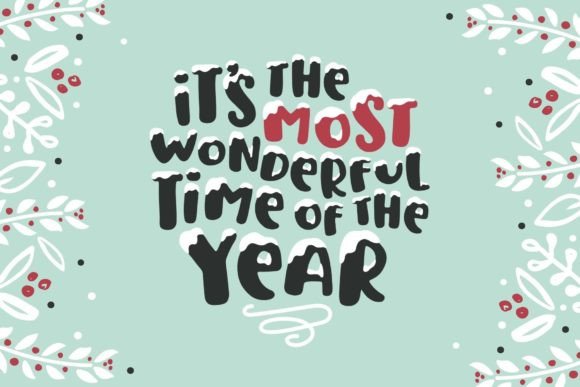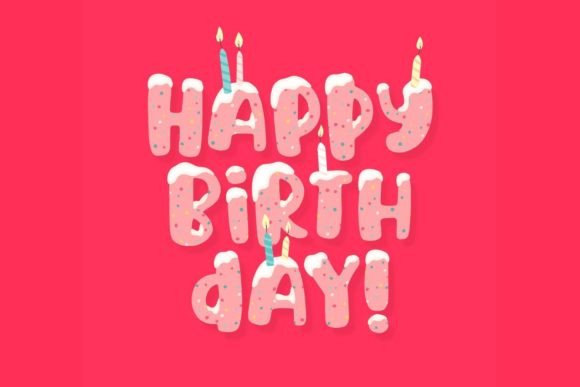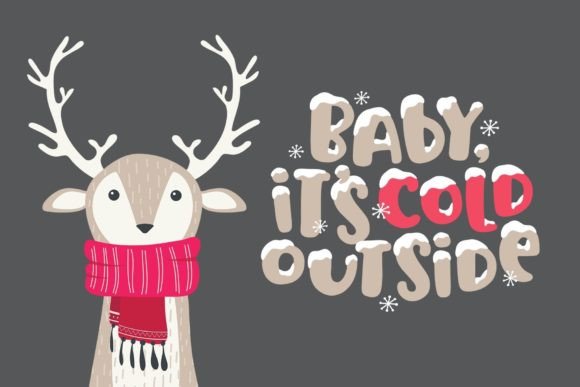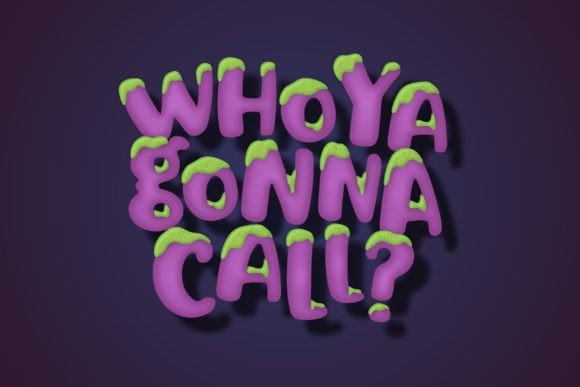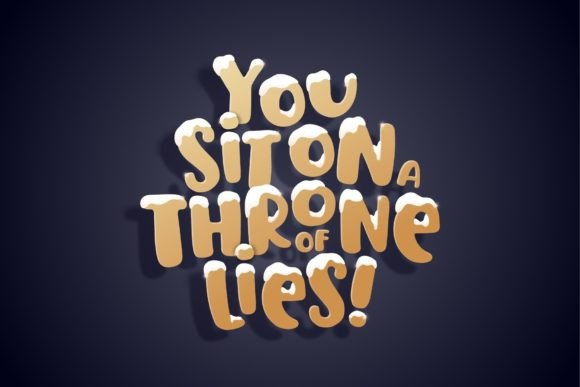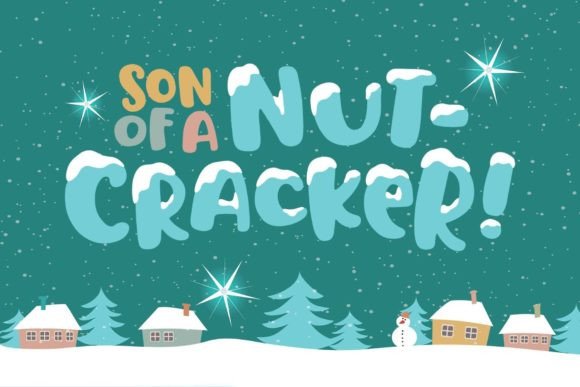
Discover the Magic of Blanket of Snow Font: A Winter Wonderland Addition to Your Designs
Are you looking for a font that can add a touch of winter magic to your designs? Look no further than the Blanket of Snow Font, a wide, bold font packed with personality. This versatile font can be used alone or paired with its overlay version for a snow-capped effect, making it perfect for a variety of projects. In this article, we’ll dive into the features and benefits of the Blanket of Snow Font and explore how you can use it to elevate your designs.
A Font that’s as Unique as a Snowflake
The Blanket of Snow Font is a one-of-a-kind typeface that’s sure to make your designs stand out. Its wide, bold letters are perfect for headlines, titles, and other applications where you want to make a statement. The font’s unique personality shines through in its playful, yet rugged, design. Whether you’re creating a winter-themed project or just want to add a touch of whimsy to your work, the Blanket of Snow Font is the perfect choice.
Versatility at its Finest: Using Blanket of Snow Font Alone or with Overlay
One of the best things about the Blanket of Snow Font is its versatility. You can use it on its own for a bold, eye-catching look or pair it with the overlay version for a snow-capped effect. This overlay version allows you to add an extra layer of texture and interest to your designs, giving them a truly unique and eye-catching look. Whether you’re creating a festive holiday card or a winter-themed poster, the Blanket of Snow Font and its overlay version make it easy to achieve a professional-looking result.
Adding a Touch of Winter Wonder to Your Designs
The Blanket of Snow Font is perfect for a wide range of design projects, from winter-themed posters and flyers to holiday cards and invitations. Its bold, playful design makes it a great choice for:
- Winter-themed posters and flyers
- Snow-themed party decorations and banners
- Winter sports and outdoor gear branding
- Festive packaging and product labels
With the Blanket of Snow Font, you can add a touch of winter wonder to any project and make it truly unforgettable.
Tips for Getting the Most Out of Blanket of Snow Font
To get the most out of the Blanket of Snow Font, here are a few tips to keep in mind:
- Use it boldly: The Blanket of Snow Font is designed to make a statement, so don’t be afraid to use it in large sizes.
- Experiment with colors: The font’s bold design looks great in a variety of colors, from bright and bold to more muted and subtle.
- Pair it with other fonts: The Blanket of Snow Font pairs well with a variety of other fonts, so feel free to experiment with different combinations.
- Try the overlay version: The overlay version of the font adds an extra layer of texture and interest to your designs, so be sure to give it a try.
By following these tips, you can get the most out of the Blanket of Snow Font and create designs that are truly unforgettable.
The Blanket of Snow Font is a versatile and eye-catching typeface that’s perfect for adding a touch of winter magic to your designs. With its bold, playful design and overlay version, it’s easy to create unique and professional-looking results. Whether you’re a designer, crafter, or DIY enthusiast, the Blanket of Snow Font is a great addition to your toolkit. So why wait? Download the Blanket of Snow Font today and start creating designs that are sure to make a statement.